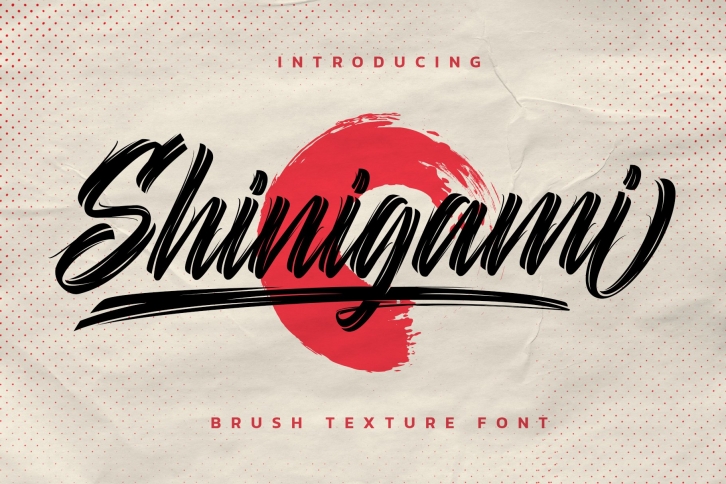
Shinigami is a great font that was designed by Hoperative Design. Imagine the amount of combinations you can create using this font! The archive is 3.5 MB and it was released on November 25, 2021. Shinigami looks beautiful on wedding invitations, greeting cards, logos, posters, labels, t-shirt designs, logos, business cards and is perfect for use in ink or watercolor works, fashion, magazines, packaging and food menus, children's books and more!